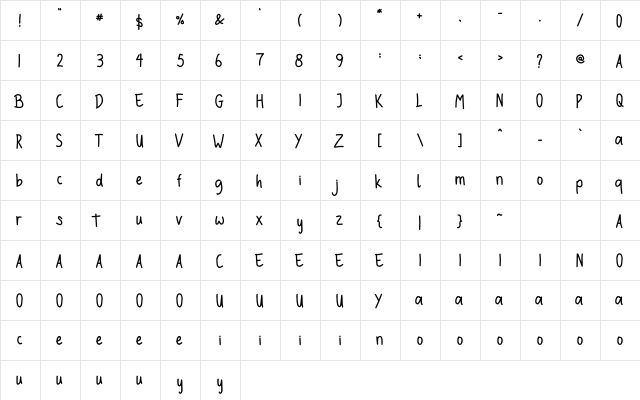
Rodda Kidas Regular
Design Context for Rodda Kidas Typeface
Rodda Kidas takes a measured approach to typography — its balanced proportions and neutral character make it a reliable workhorse for both digital and print work.